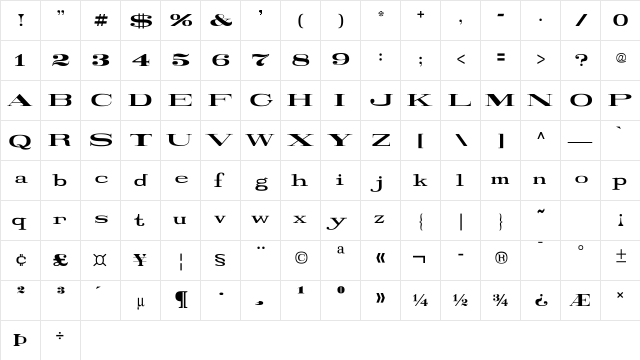
Railroad Roman 1916 Normal Regular
Foundry: E. V. Norat II
Designer: E. V. Norat II
Design Context for Railroad Roman 1916 Normal
Railroad Roman 1916 Normal is a composed and adaptable typeface that performs quietly and consistently across a wide range of design contexts.
Pro Tip: Use Railroad Roman 1916 Normal in both headline and body roles to test its range before committing to a single application.